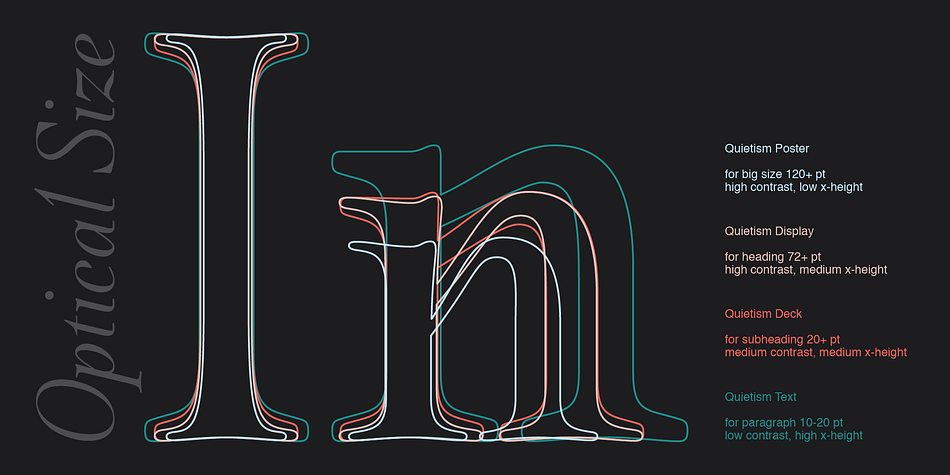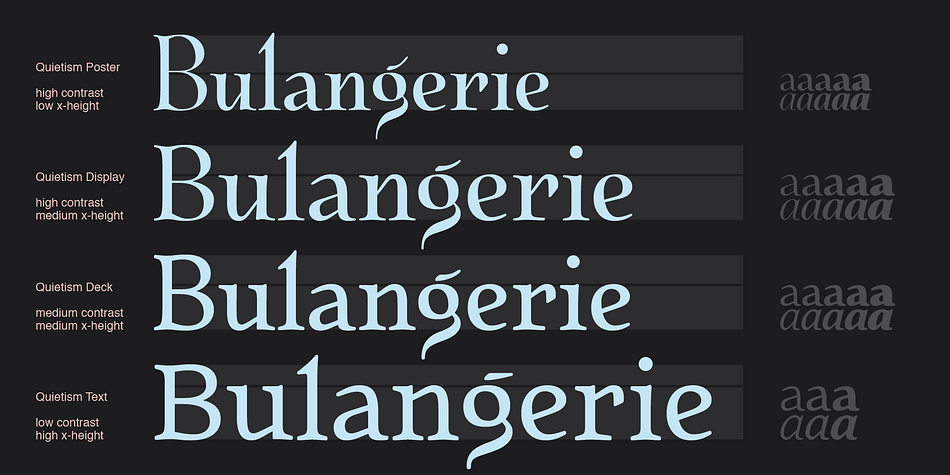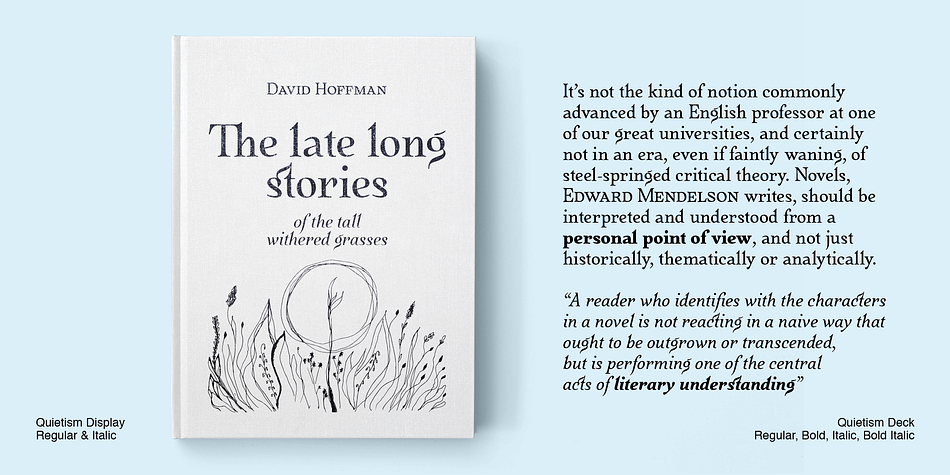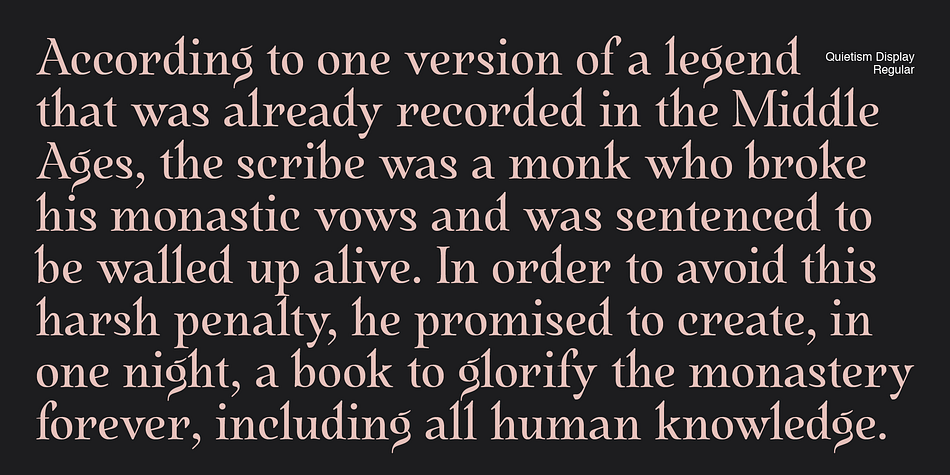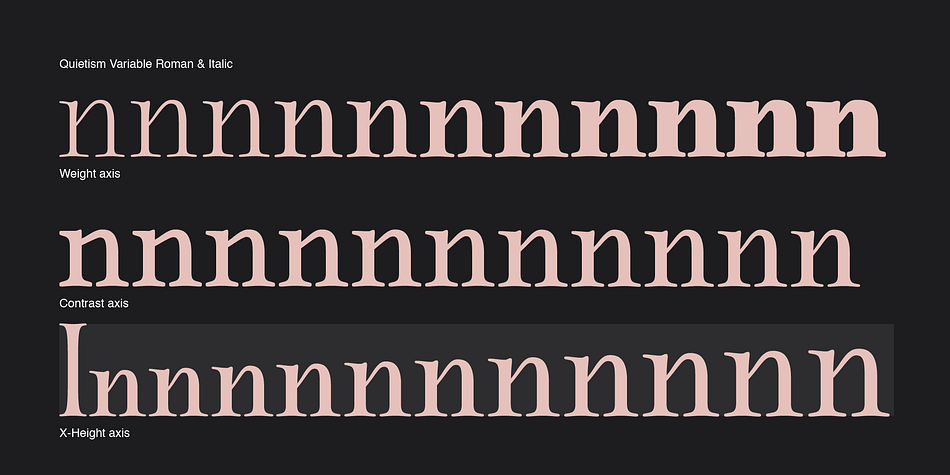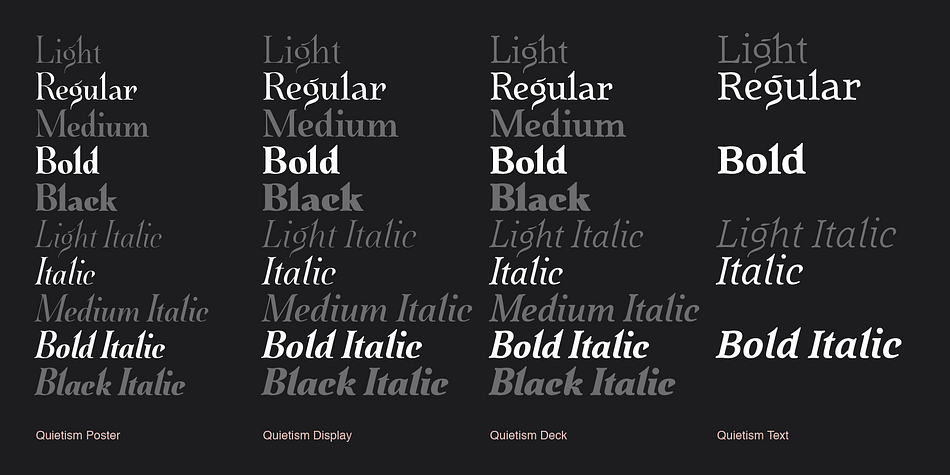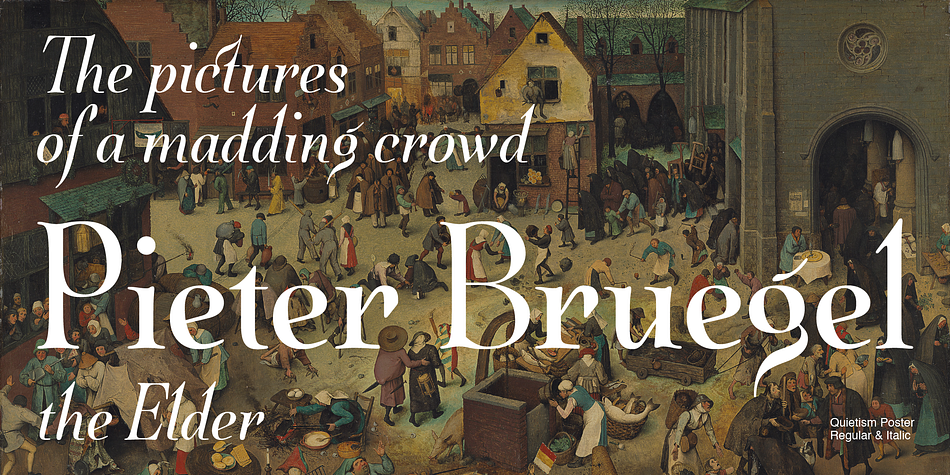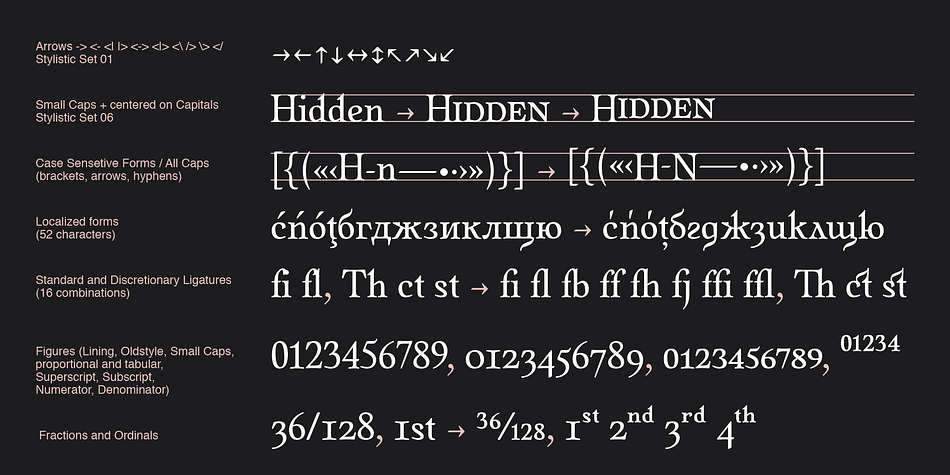
Quietism
Designed by Michael Rafailyk, Quietism is a serif font family. This typeface has thirty-eight styles and was published by Michael Rafailyk.
A smooth contemplative Antiqua with aspiring to the sky ascenders, inspired by the Quietism philosophy. Clarity of the mind is achieved by bringing the body into a state of calm and contemplation, and this is reflected in the design – the quiet horizontal serifs (body) are opposed to the peaky soaring ascenders (mind). The design also features four optical size subfamilies with different x-height and contrast, oldstyle diagonal stress, oldstyle figures by default, smooth details and slightly dark texture.
Optical sizes: Text, Deck, Display, Poster subfamilies.
Variable fonts: Roman and Italic styles. Weight, Contrast, X-Height axes.
Scripts: Latin, Greek, Cyrillic.